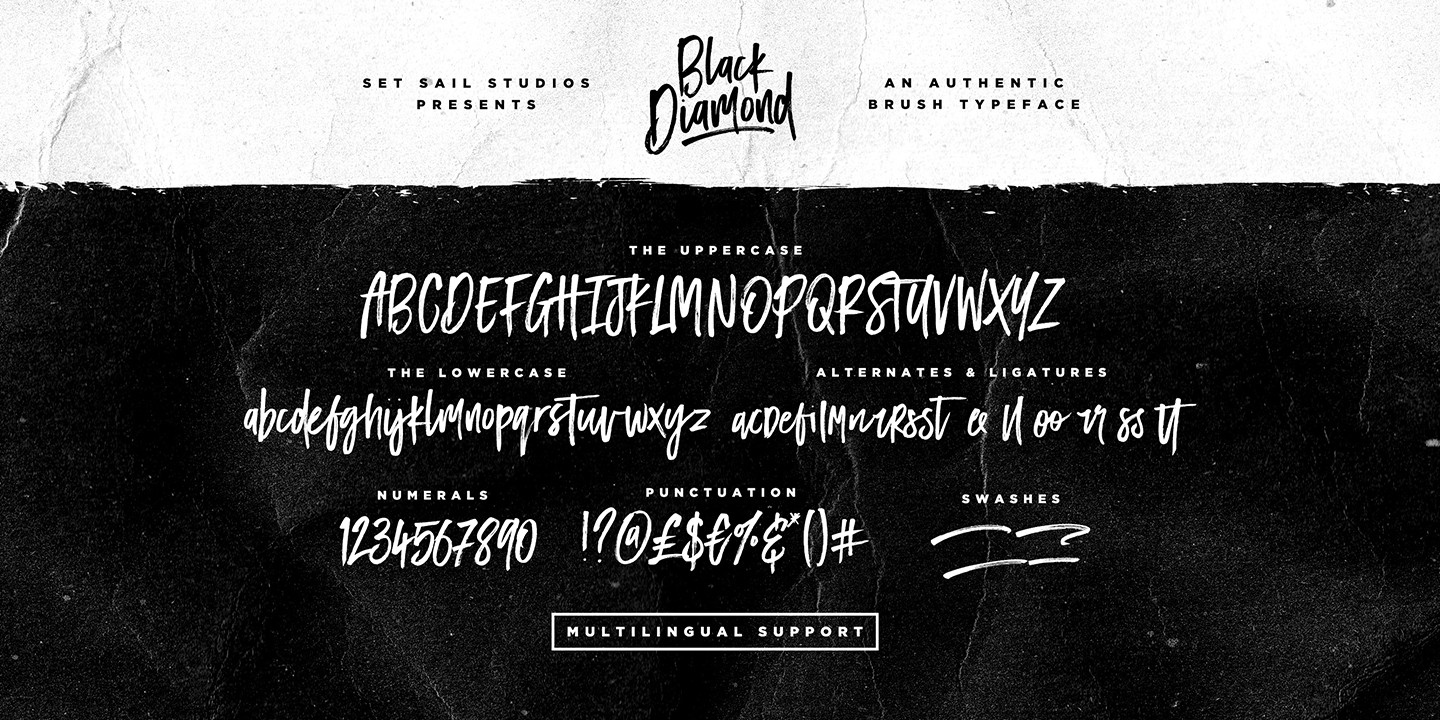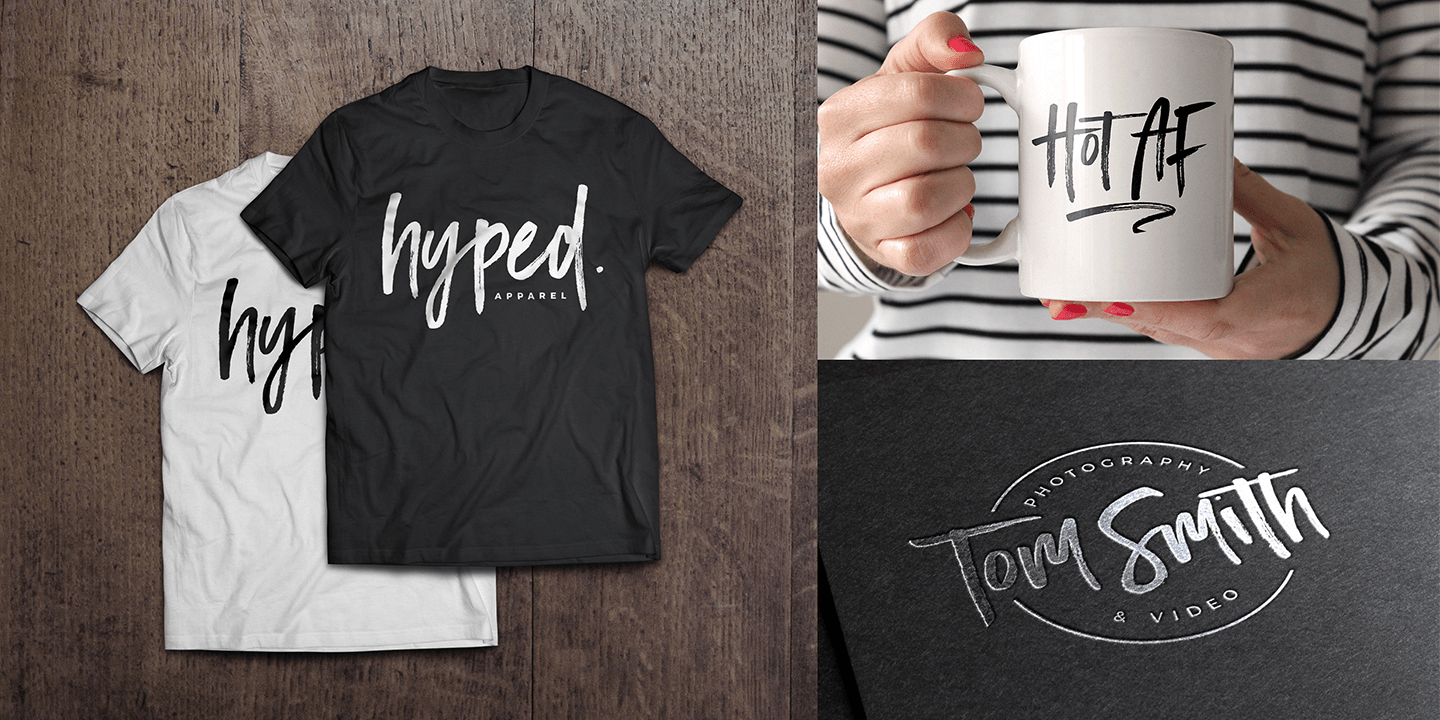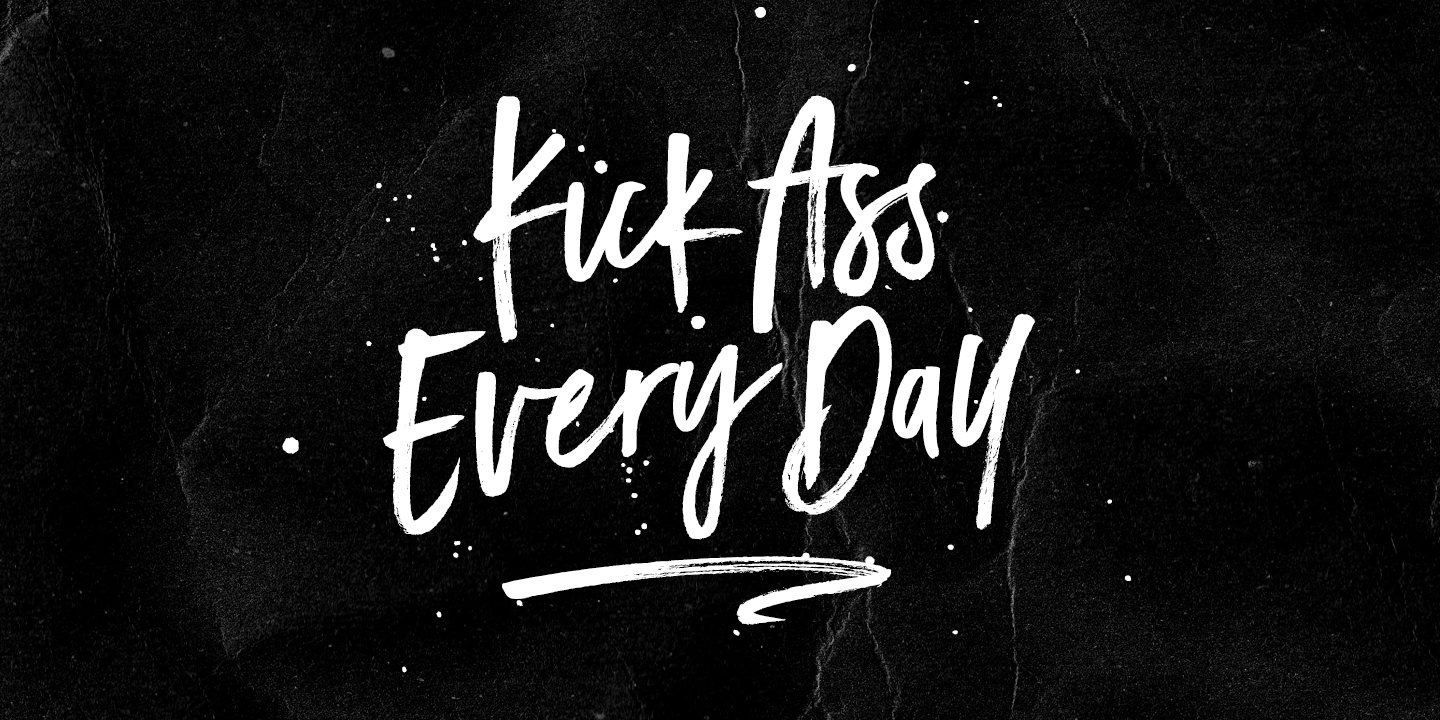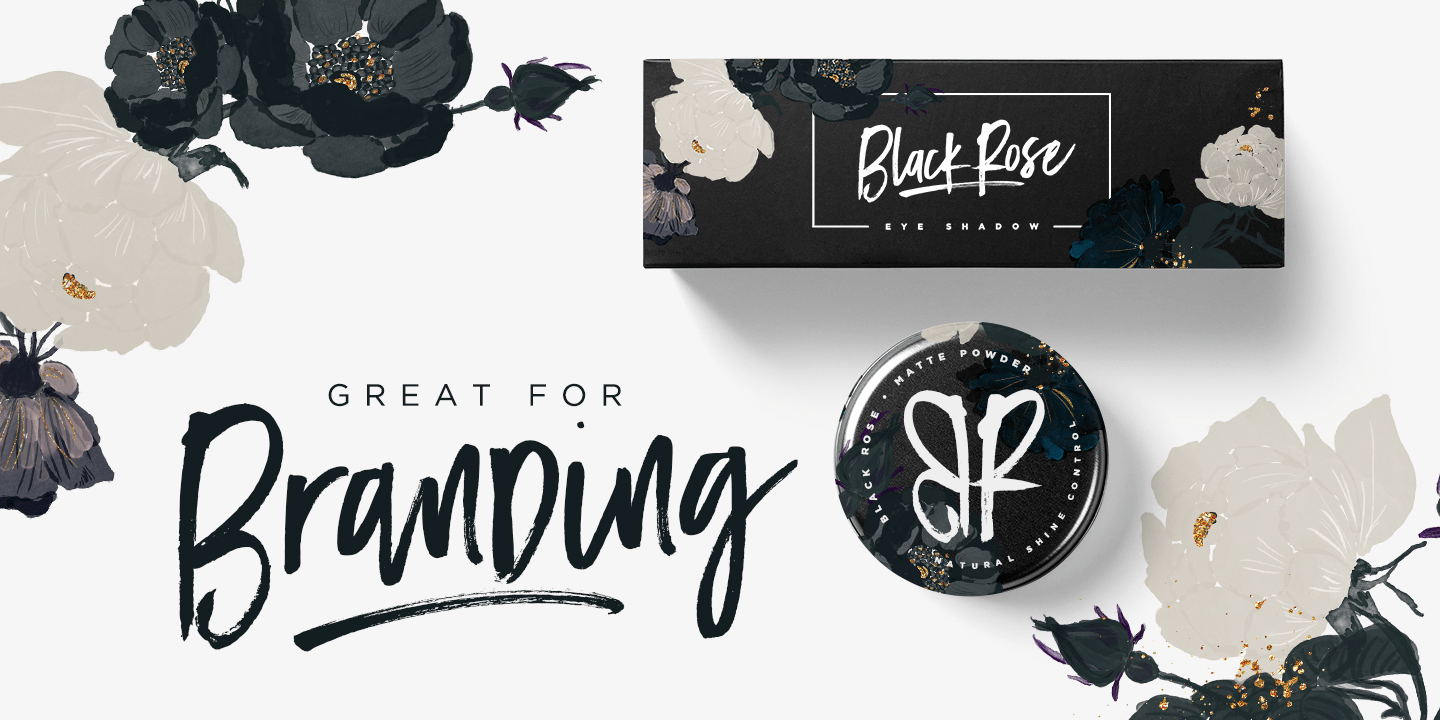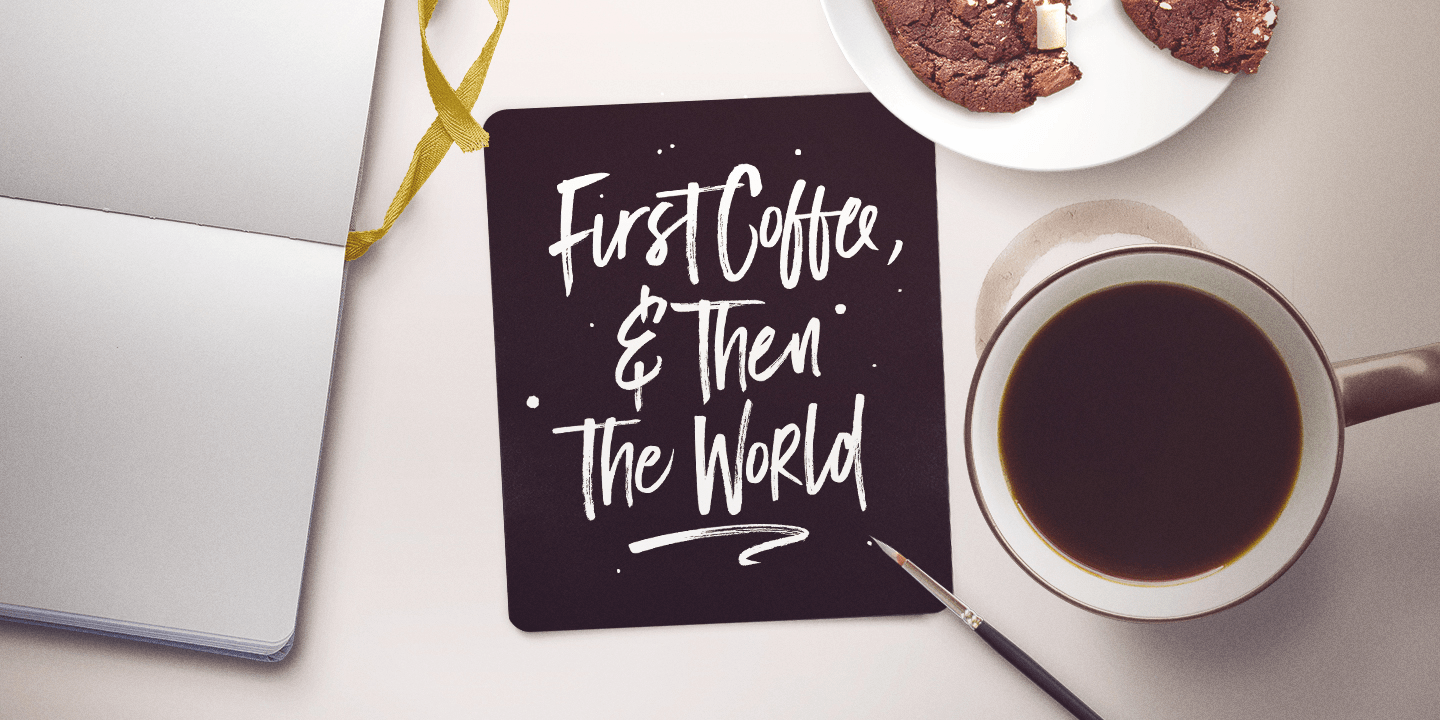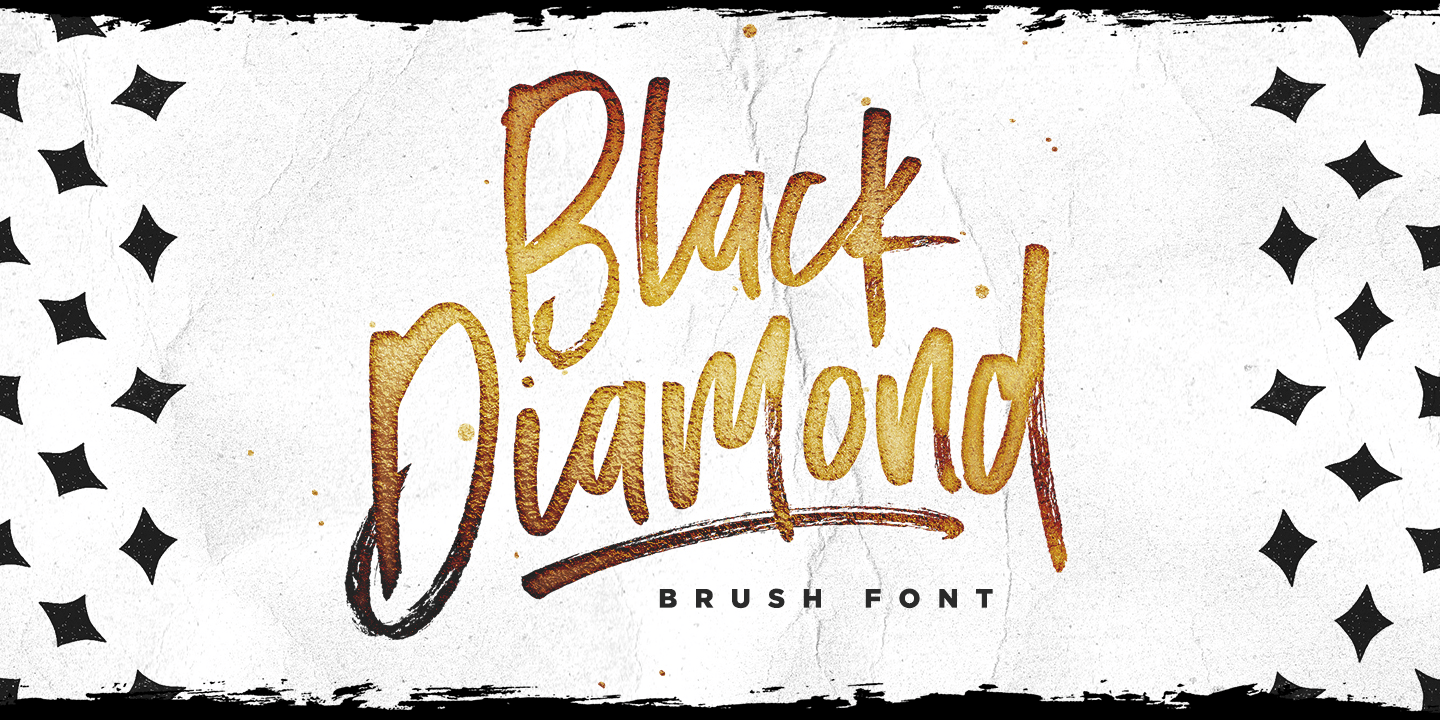
Black Diamond
Font Family by Set Sail Studios
Black Diamond isn't your average brush font, it’s raw, edgy & bursting with attitude! Hand-painted with extra attention to quick-strokes and dry textures, Black Diamond is guaranteed to deliver a loud, proud & unashamed message - ideal for logos, handwritten quotes, product packaging, merchandise, advertising, social media & branding projects. Black Diamond comes as a single font packed full of great features. It contains a full set of lower & uppercase letters, a large range of punctuation, numerals, and multilingual support. The font also contains several ligatures and stylistic alternates for those who have opentype capable software. Lastly you can add some finishing touches to your work with the added bonus extras; Just type out any of the square-bracket characters { } [ ] on your keyboard for quick and easy access to 4 different swashes, and the arrow up ^ key to produce paint splatters. Huge Language Update; Black Diamond has now been updated to support Greek & Cyrillic alphabets.